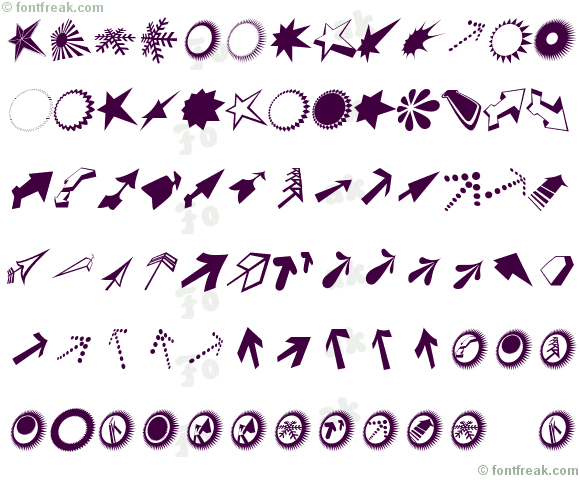
DingsbumsBats
About DingsbumsBats
DingsbumsBats, designed by Manfred Klein, is a distinctive dingbat font that first emerged in 1991 and was updated in 2003. This font is characterized by its playful and whimsical design, featuring a variety of unique symbols and shapes that are both engaging and versatile. The strokes are bold and varied, lending a dynamic quality to each character, while the spacing between elements is thoughtfully arranged to ensure clarity and visual appeal. The decorative nature of DingsbumsBats makes it a perfect choice for projects that require a touch of creativity and fun.
This font is particularly well-suited for a range of specific use cases. It can enhance wedding invitations by adding a charming and personalized flair, making them truly memorable. For movie posters, DingsbumsBats can provide an eye-catching graphic element that captures the essence of the film's theme. Restaurant menus can benefit from the font's unique symbols, which can be used to highlight special dishes or add a quirky touch to the layout. Additionally, it works wonderfully in children's book illustrations, where its playful nature resonates with young readers.
Target audiences for DingsbumsBats include graphic designers looking for unique decorative elements, small business owners wanting to stand out with their branding, and content creators searching for engaging visuals to complement their projects. The versatility and charm of this font make it an invaluable asset for anyone in creative fields.